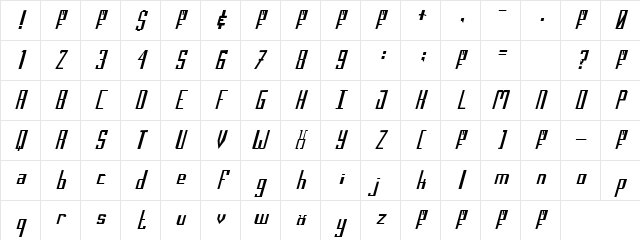
Salinas Motion Clerk 1
Design Context for Salinas Motion Clerk
Salinas Motion Clerk is a composed and adaptable typeface that performs quietly and consistently across a wide range of design contexts.
Pro Tip: Use Salinas Motion Clerk in both headline and body roles to test its range before committing to a single application.